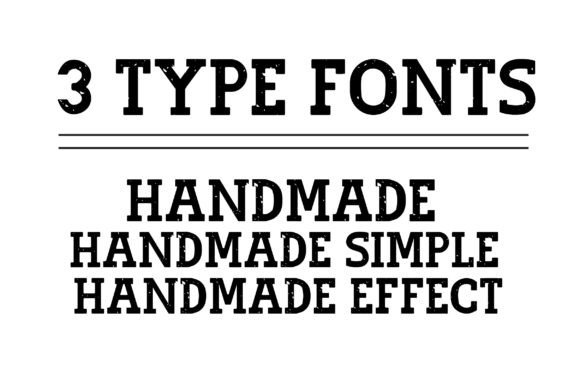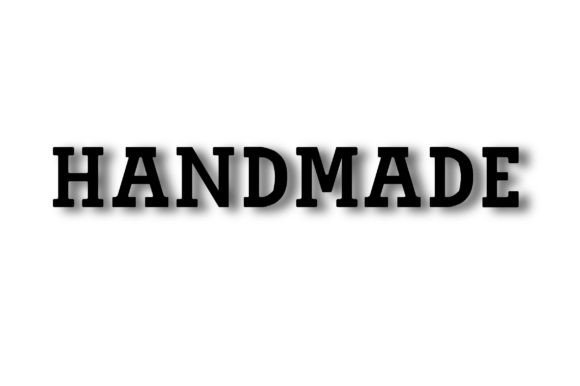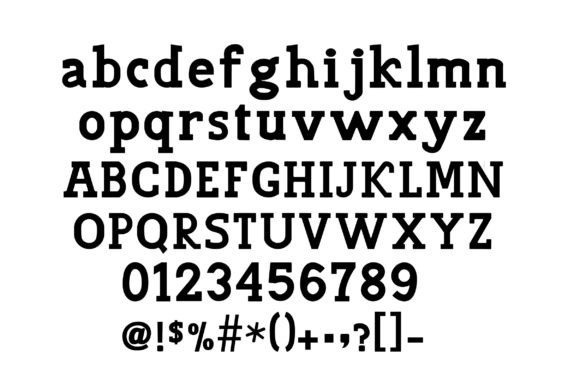
Handmade is designed in a cute and playful slab serif font style. Add it confidently to your projects, and you will love the results.
This font is the best for your hard work. You can use it for mugs, t-shirts, baby shirts, covers, social media posts, product packaging headings, etc.